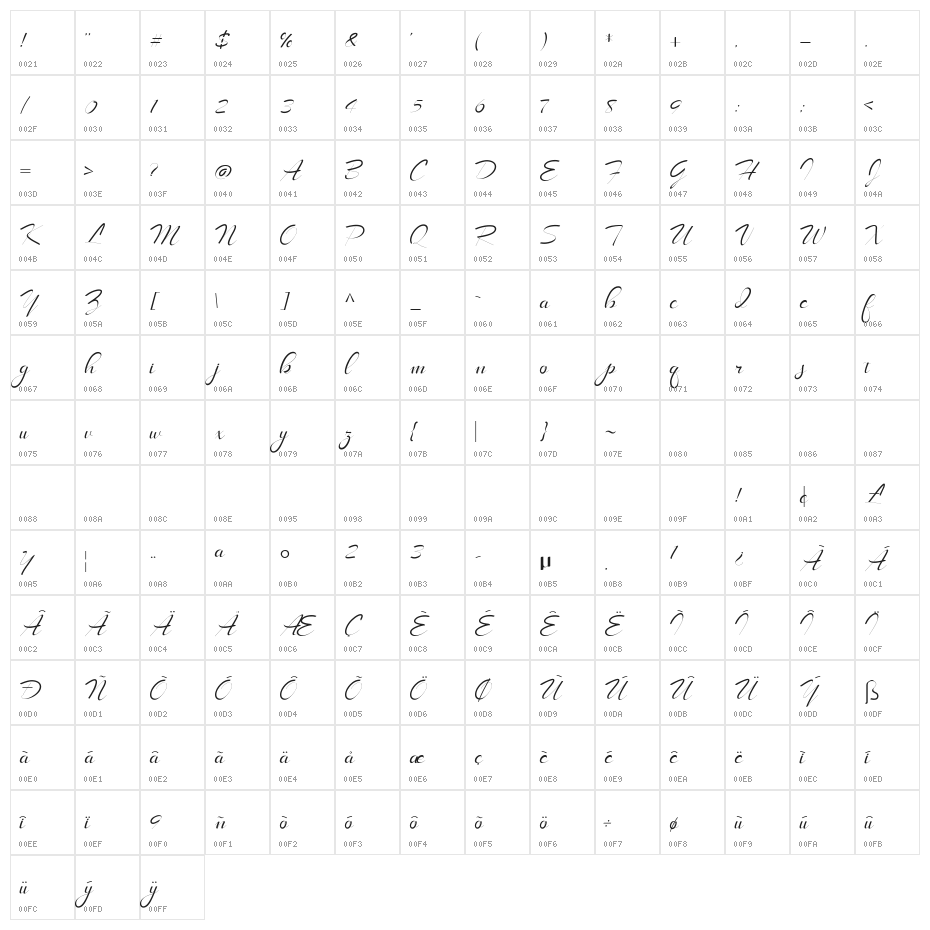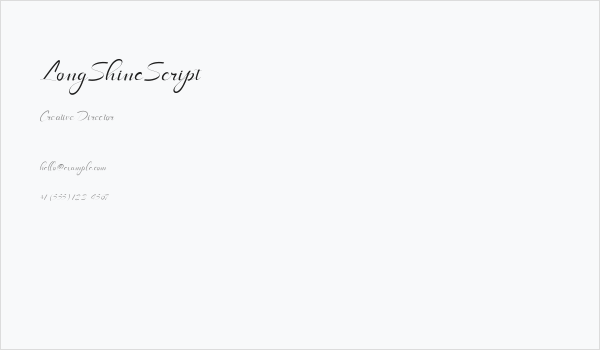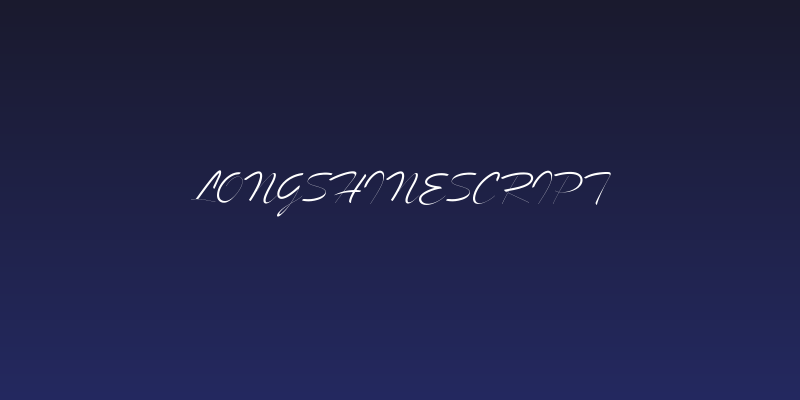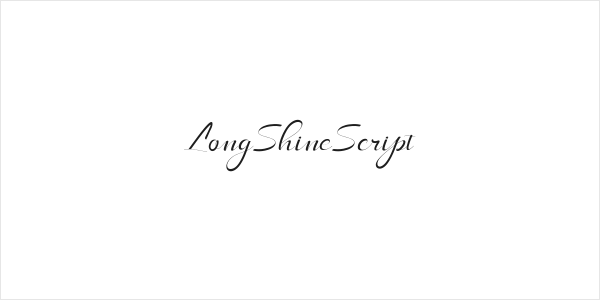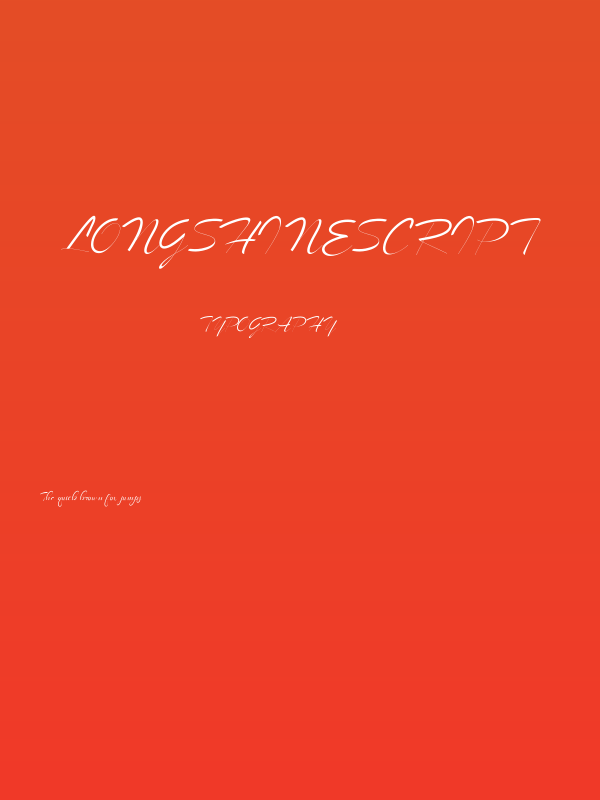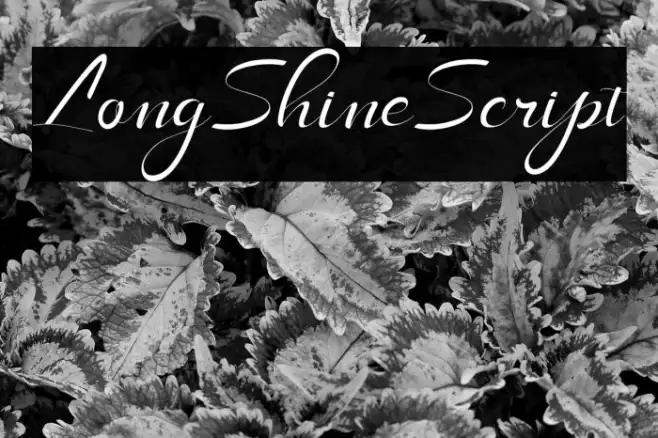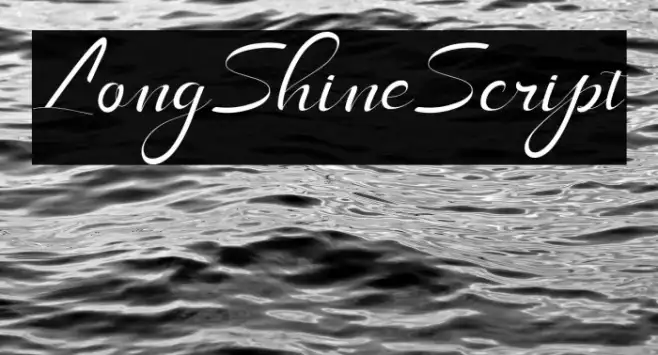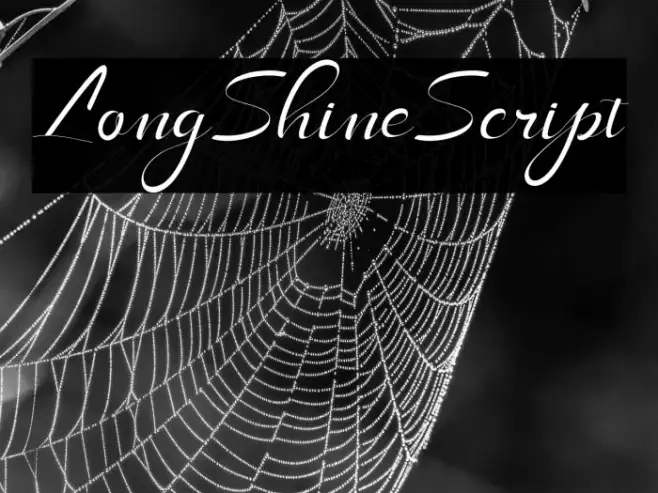
LongShineScript Font
LongShineScript Description
This elegant script font features a graceful, flowing style with high contrast between thick and thin strokes. The uppercase letters exhibit a sophisticated flair, with sweeping curves and delicate lines that convey a sense of elegance and refinement. The lowercase letters maintain a consistent flow, enhancing readability while preserving the font's artistic nature. Numbers and special characters are designed with the same attention to detail, ensuring a cohesive look across all elements. This font is ideal for projects that require a touch of class and sophistication.
| Proposed Projects | Ideal for wedding invitations, elegant branding, luxury product packaging, and sophisticated event materials. |